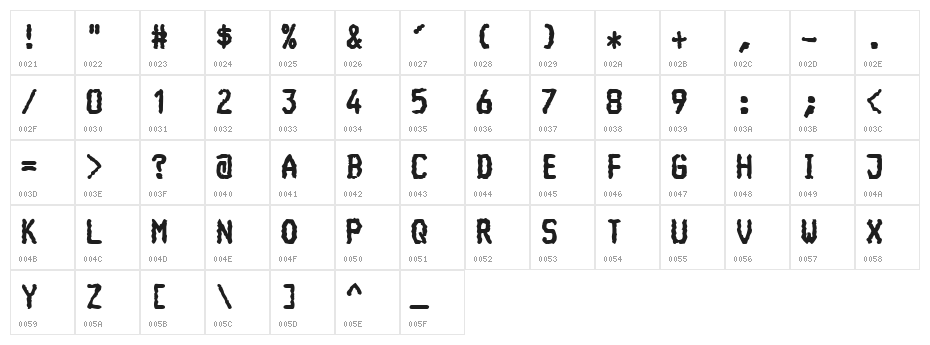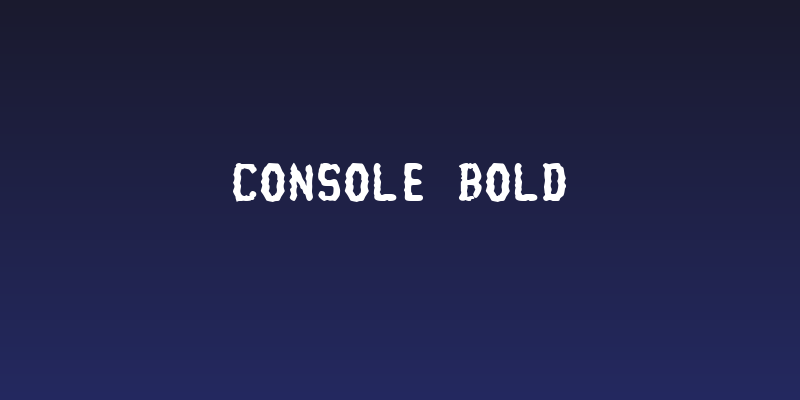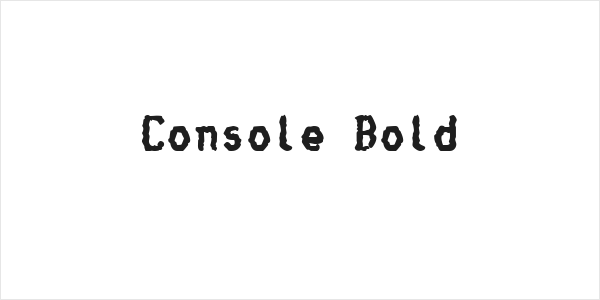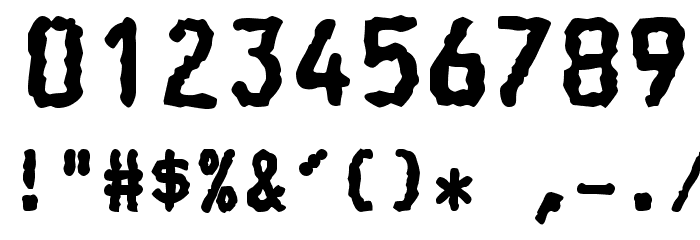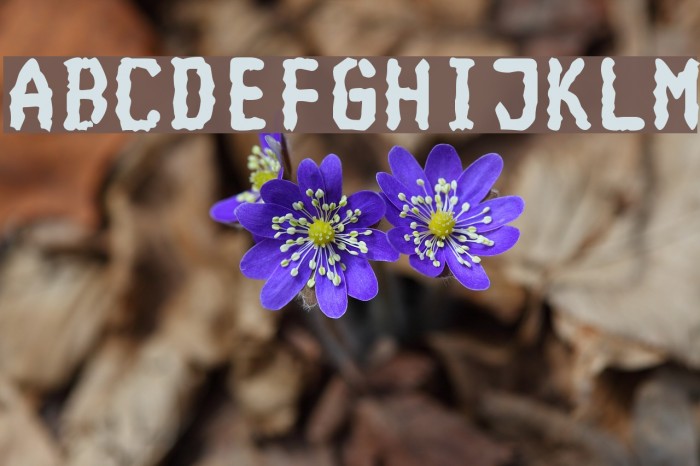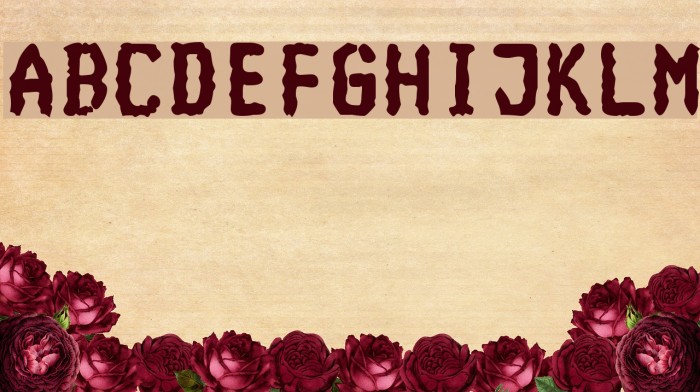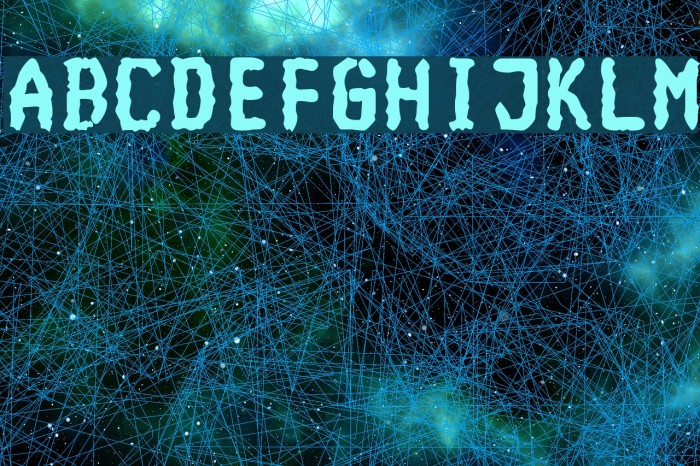
Console Bold Font
| おすすめプロジェクト | Ideal for projects that require a strong, eye-catching typeface, such as posters, logos, branding materials, and headlines. |